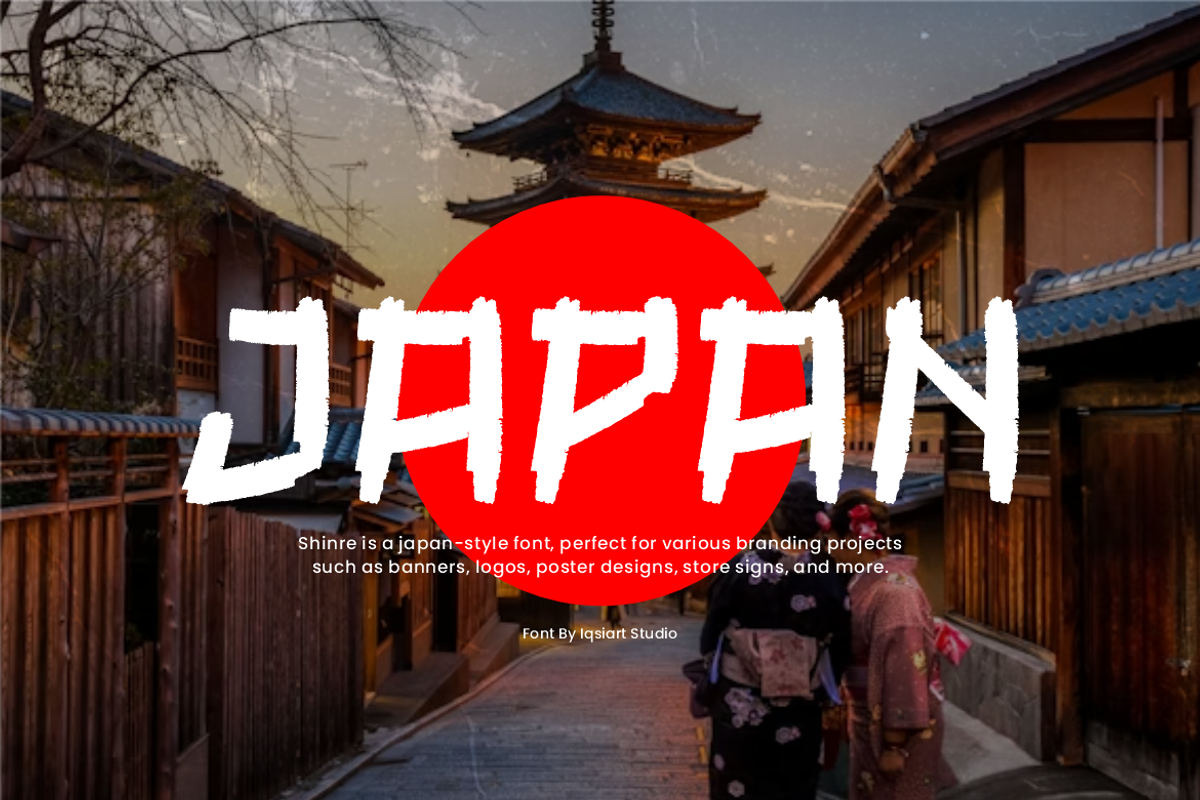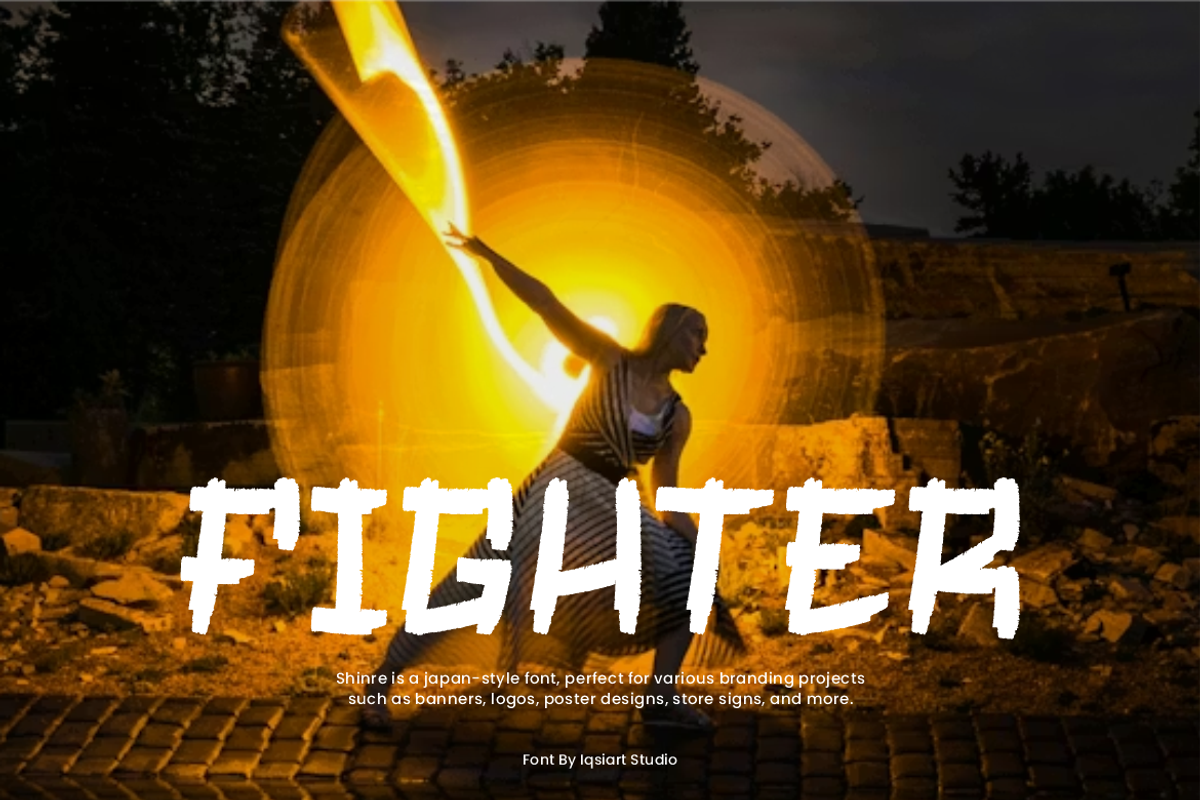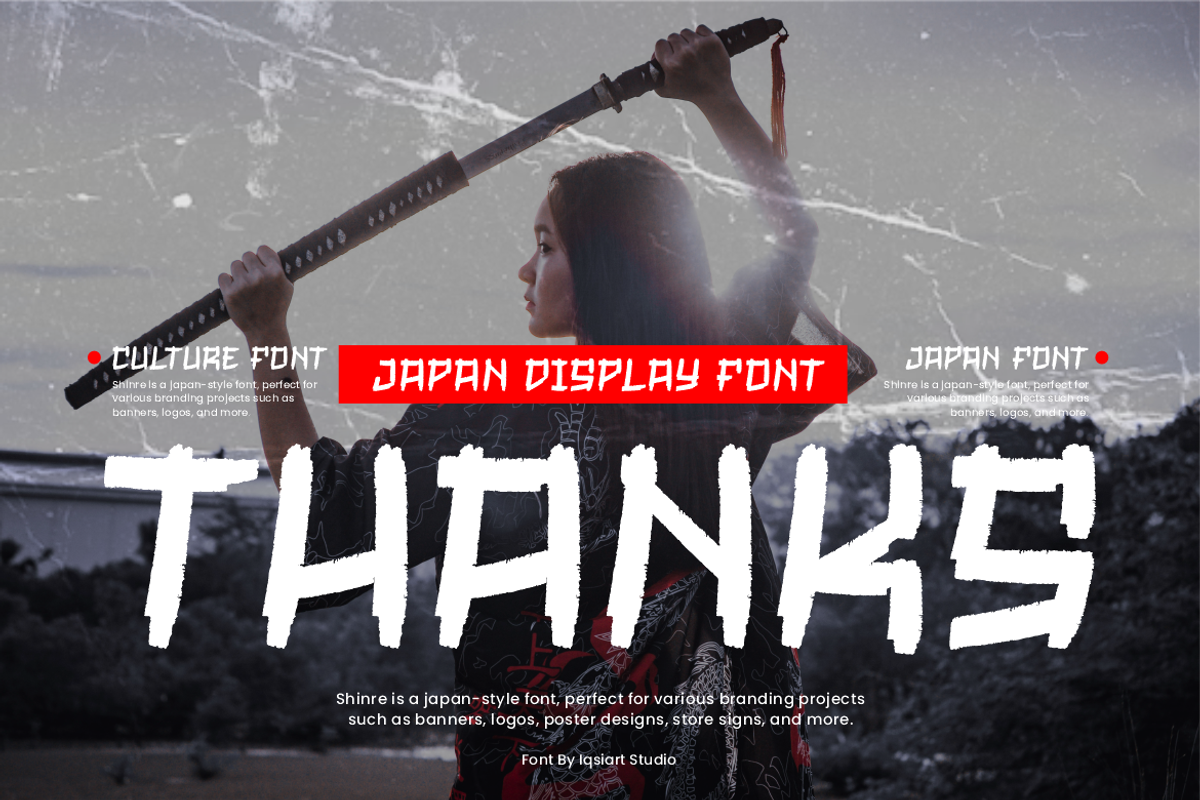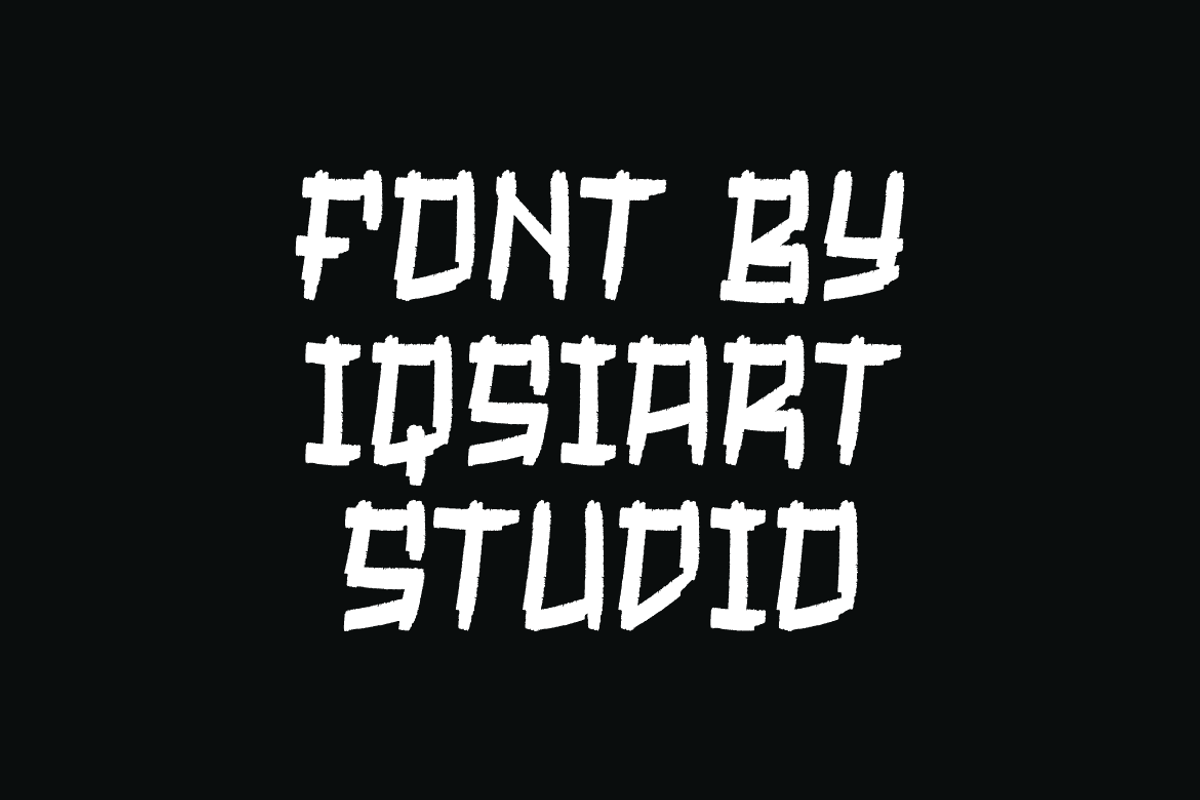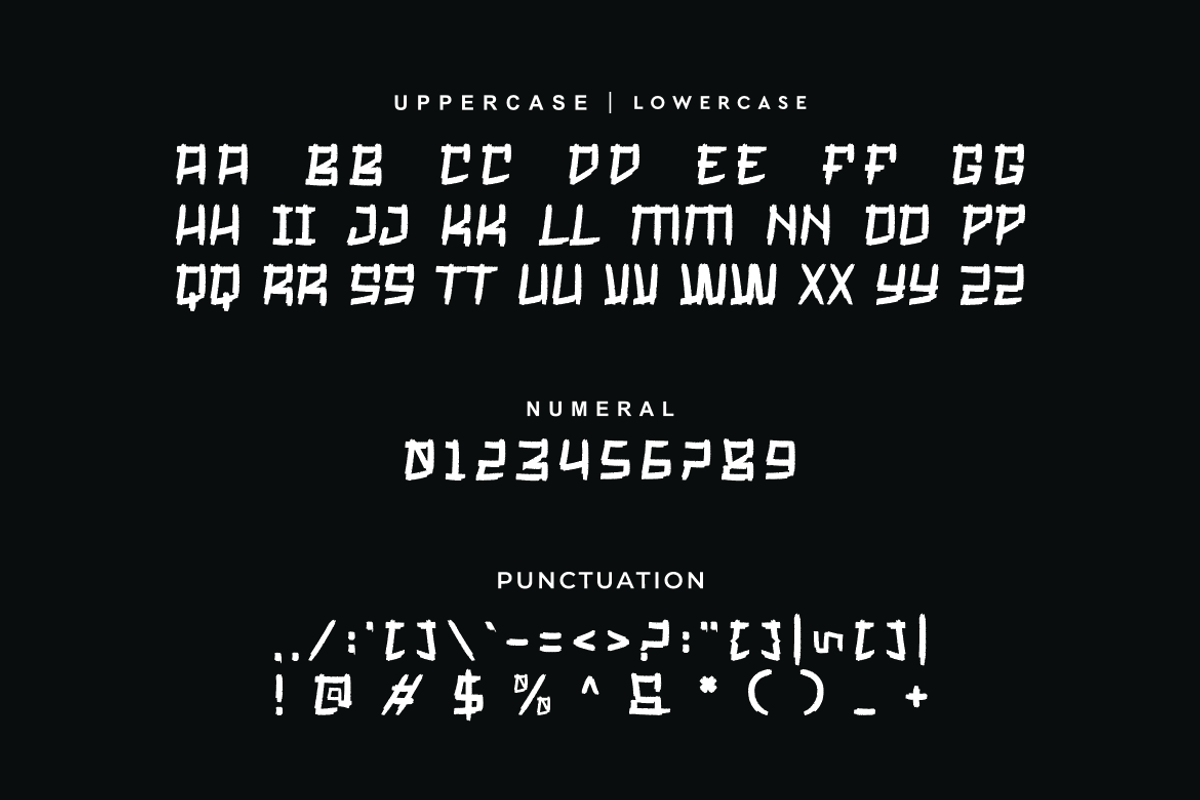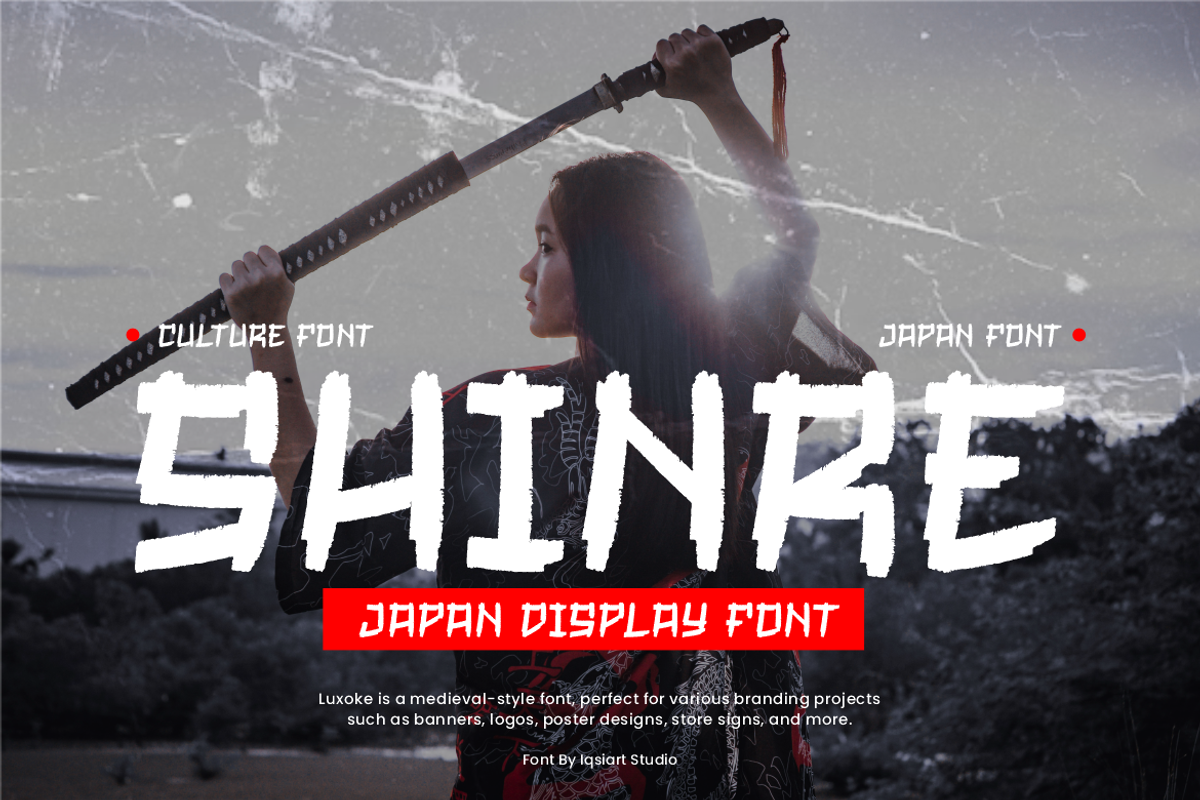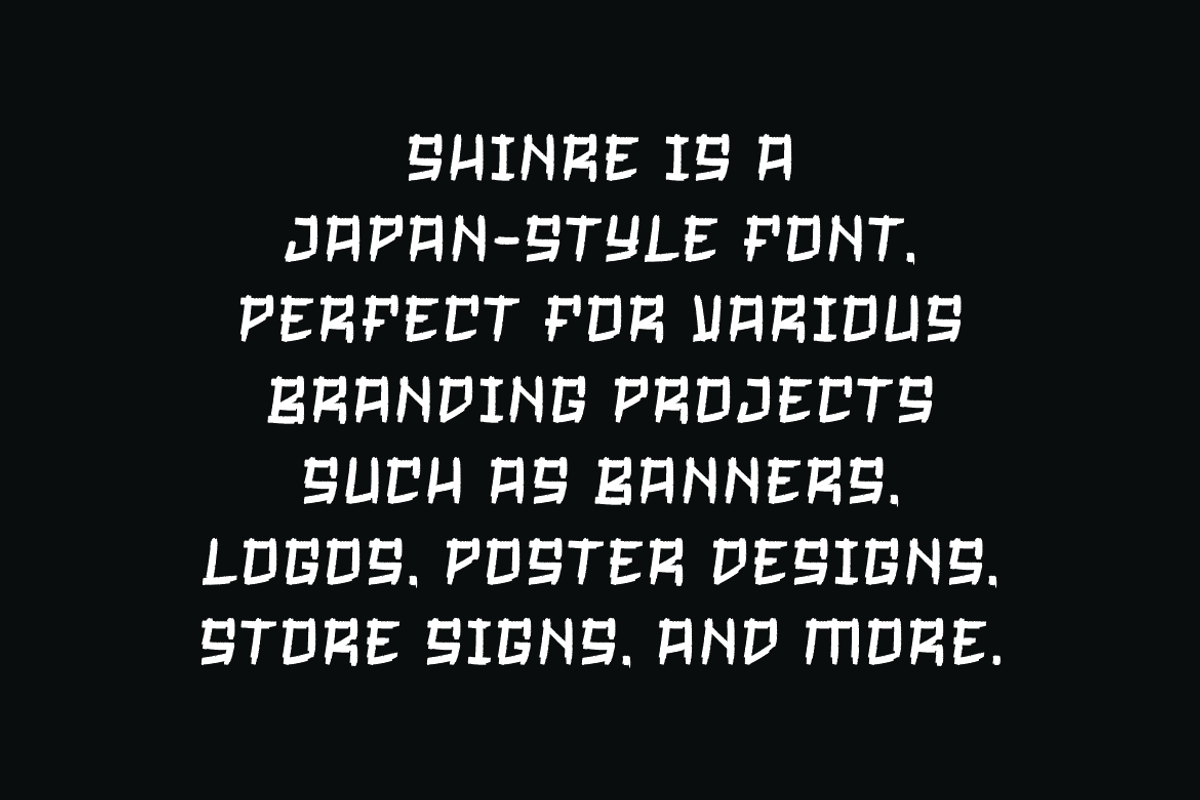
Shinre - Japanese Font
Shinre Font is a bold and authentic display typeface that suits a variety of design needs. We offer a wide range of themes and font styles — visit our profile to explore more and find the perfect style for your project.